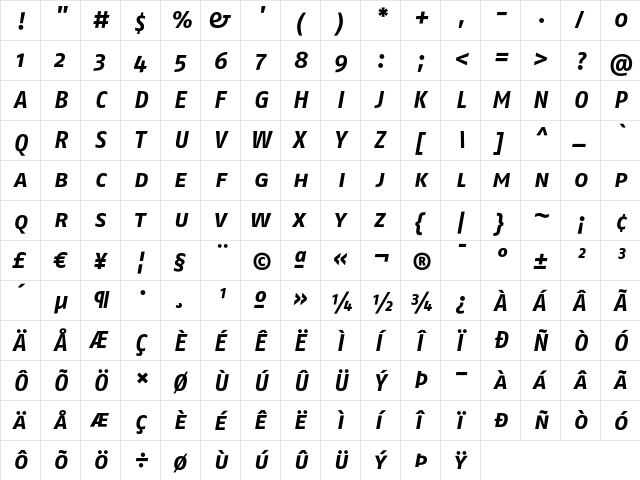
FagoNoBold Regular
Design Context for FagoNoBold Typeface
FagoNoBold takes a measured approach to typography — its balanced proportions and neutral character make it a reliable workhorse for both digital and print work. The heavy weight commands attention and anchors typographic hierarchies.